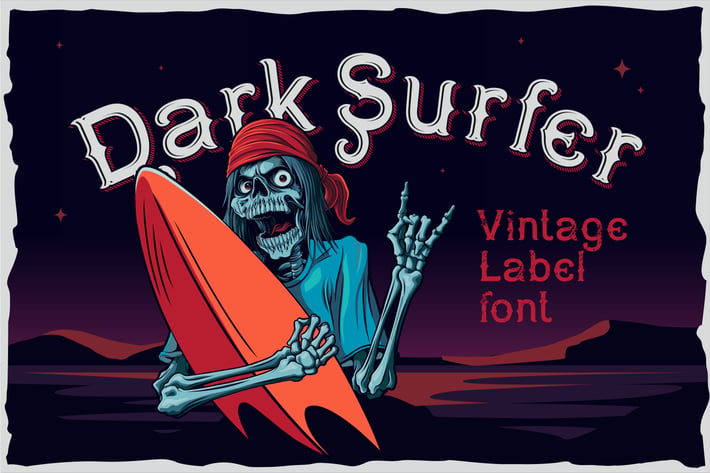
Dark Surfer - vintage font
Dark surfer. A sleek, layered, vintage-style font.
It contains 6 writing styles, basic characters, numbers, punctuation and multilingual characters for all styles